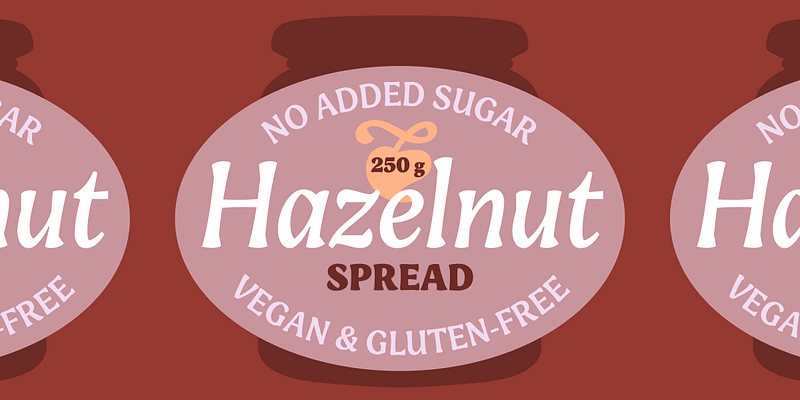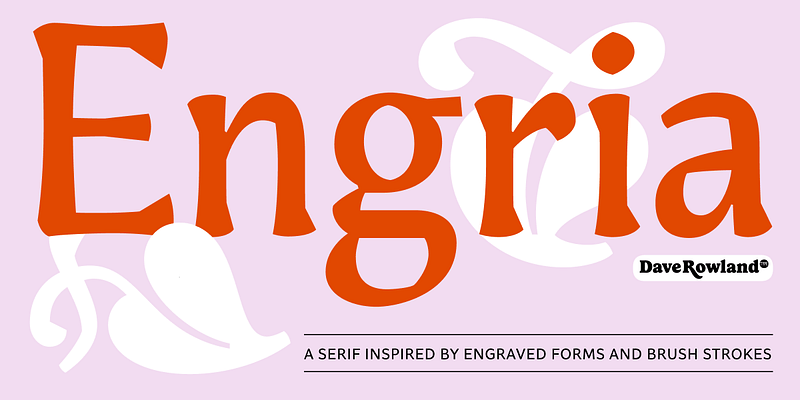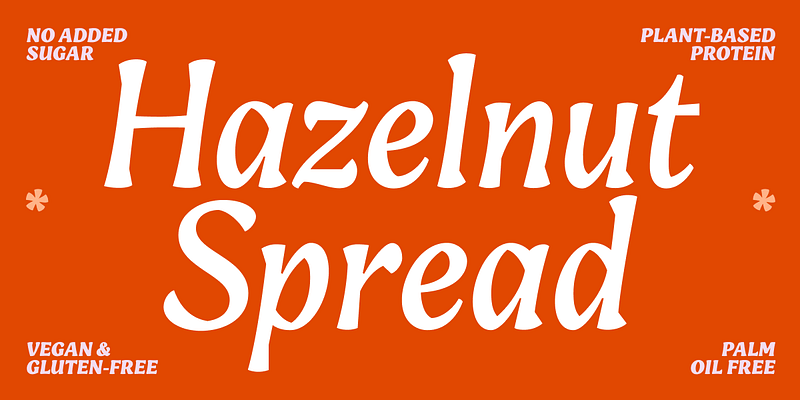
Engria nimbly treads the fine line between sans and serif. Its wedge-like serifs resemble engraved forms created by the splayed shape made by the bristles when clamped together. At the same time, it looks like a stressed, flared sans. This mixed approach lends a unique voice. Thanks to its characteristic details, it is highly legible in text sizes and shines in display sizes. Engria has four weights, with italics, and makes a perfect addition to any designer’s typographic arsenal.